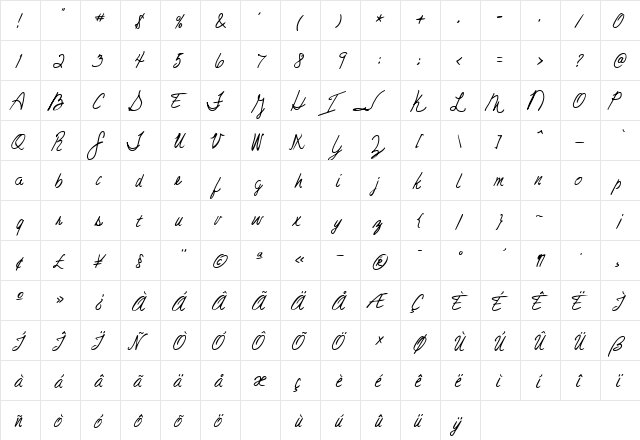
Theresa Cursive Hand Regular
Design Context for Theresa Cursive Hand Typeface
Theresa Cursive Hand brings a calligraphic fluidity to the page — its connecting strokes and expressive curves give it an unmistakably human quality.
Font Pairing: Combine Theresa Cursive Hand with a simple geometric sans for maximum contrast — the tension between flowing curves and clean structure is a classic typographic pairing.
Pro Tip: Pair Theresa Cursive Hand with a clean sans-serif for supporting text. The contrast between fluid script and geometric structure creates an elegant typographic hierarchy.